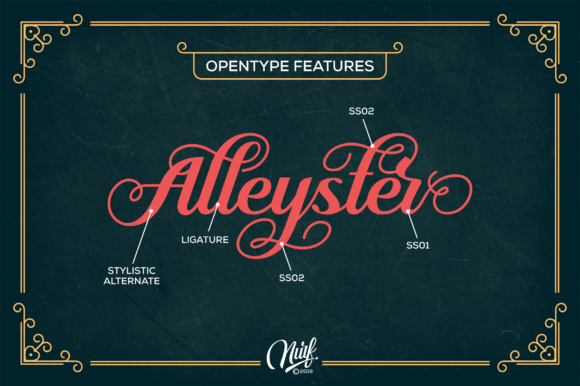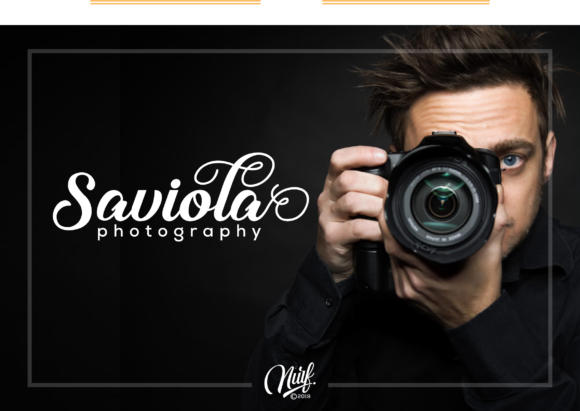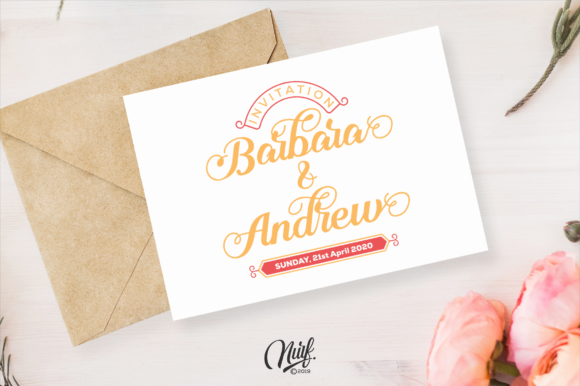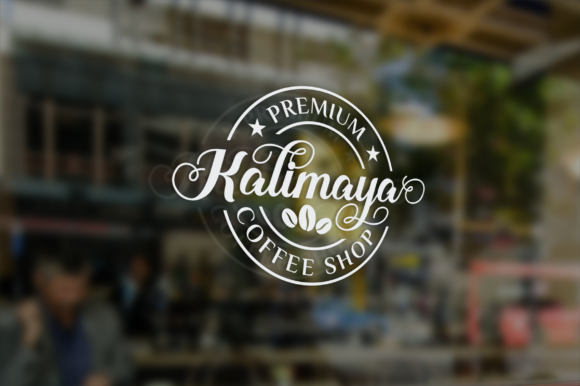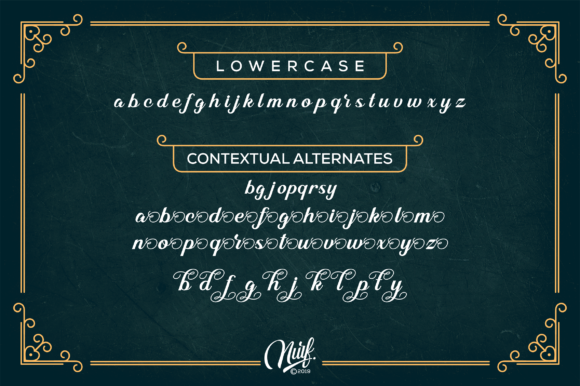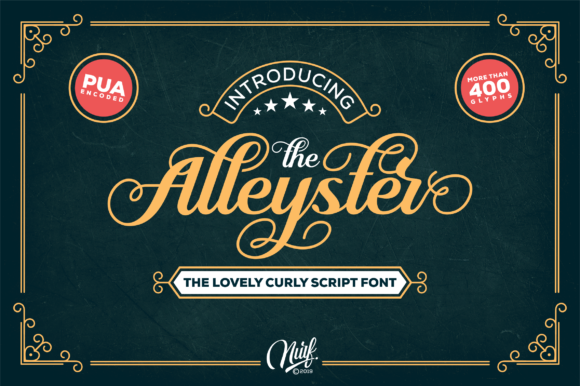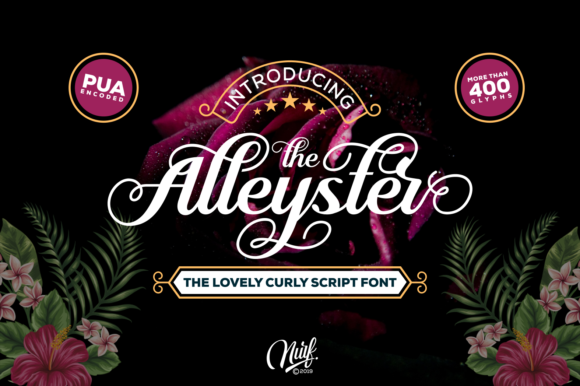
The Alleyster Font: A Modern Calligraphy Dream
I’ll never forget the time I was working on a logo design project for a trendy boutique, and I was stuck on finding the perfect font. The client wanted something that exuded elegance, sophistication, and a touch of whimsy. I scoured the internet, tried out countless fonts, but nothing seemed quite right. That was until I stumbled upon the Alleyster font. ✨
This lovely curly script font has a modern calligraphy style that immediately caught my attention. Its amazing handwritten characters and fluid strokes made it perfect for logos, posters, headlines, and every other design that needs to stand out! In this article, I’ll share my experience with the Alleyster font, its features, and how to make the most of it in your designs.
- ✨ Elegant and sophisticated design
- ✅ Highly versatile and adaptable
- 🎉 Amazing handwritten characters and glyphs
While the Alleyster font is fantastic, there are a few things to keep in mind: 🤔
- ⚠️ Limited availability of condensed or bold weights
- Experiment with OpenType features, such as stylistic alternates and glyphs, to add personality to your text.
- Explore the OpenType features, such as ligatures and stylistic sets, to customize your text.
- Use the font’s built-in glyphs and stylistic alternates to add visual interest to your text.
The Story Behind Alleyster
The Alleyster font was designed with the intention of creating a modern, elegant script font that captures the essence of handwritten calligraphy. The designer aimed to create a font that is both versatile and beautiful, perfect for a wide range of design applications. While the real story behind the font’s creation may be unknown, it’s clear that the Alleyster font has become a beloved choice among designers and crafters alike.
Q: What is the Alleyster font best used for?
A: The Alleyster font is perfect for logos, posters, headlines, and every other design that needs to stand out! Its elegant and sophisticated design makes it ideal for a wide range of applications.
Q: Is the Alleyster font suitable for body text?
A: While the Alleyster font is beautiful, it’s best suited for headlines and titles rather than body text. Its curly, script style can be difficult to read in large blocks of text.